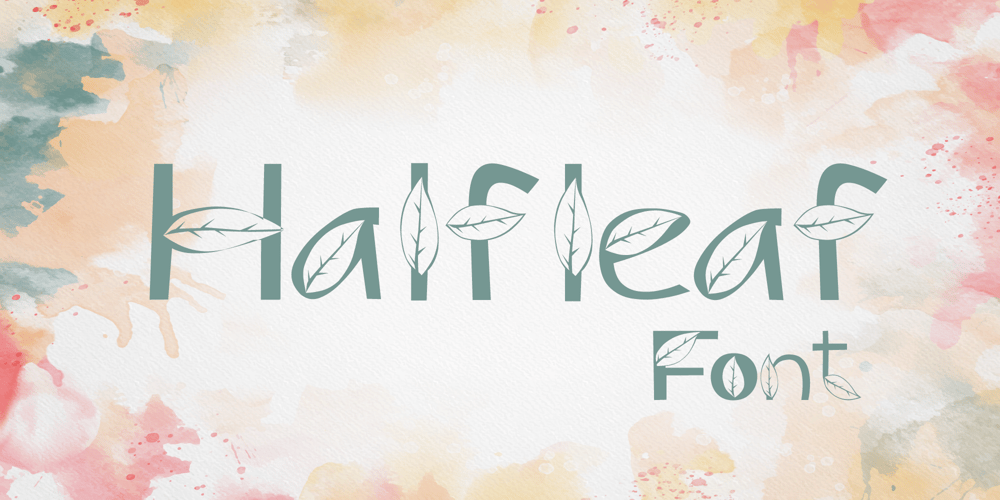
Halfleaf Font Family was designed by Sol Hess and published by Arkalandara. Halfleaf contains 1 styles and family package options. Handwriting in the shape of a leaf is a unique and artistic expression, blending organic forms with the fluidity of pen strokes. Imagine each letter and curve mirroring the graceful contours of a leaf, with lines that mimic the veins and natural irregularities found in foliage. The letters themselves could have rounded edges, resembling the smooth and gentle curves of a leaf’s outer margins. The loops and tails of each letter may extend and curl, imitating the intricate patterns of veins that traverse a leaf’s surface. The overall composition of the handwriting may convey a sense of organic unity, as if the words are growing and branching out like a vibrant leaf on a tree.